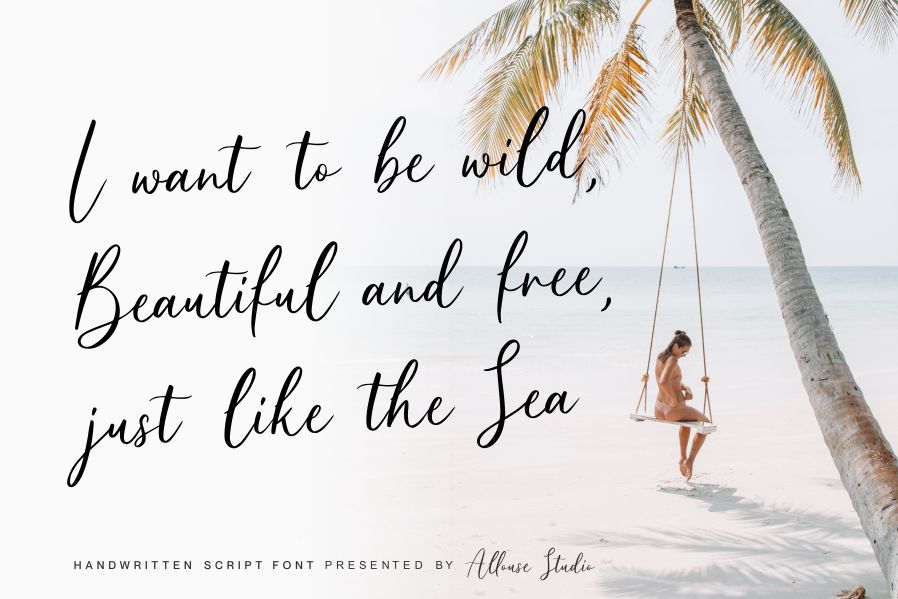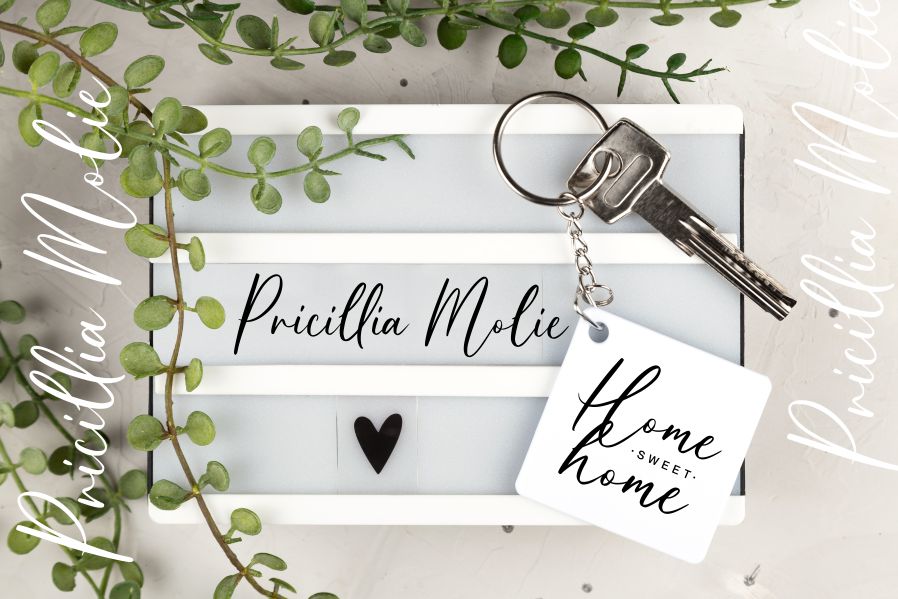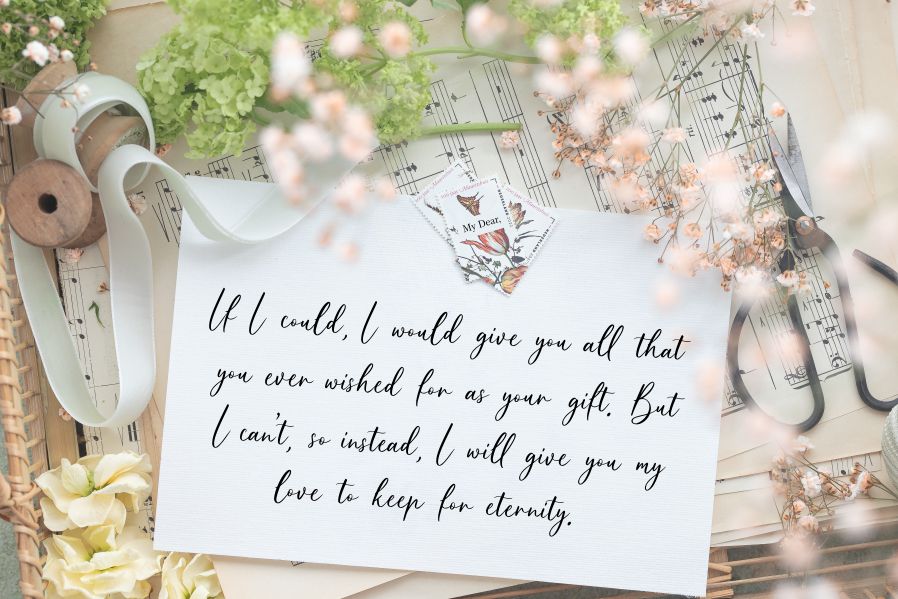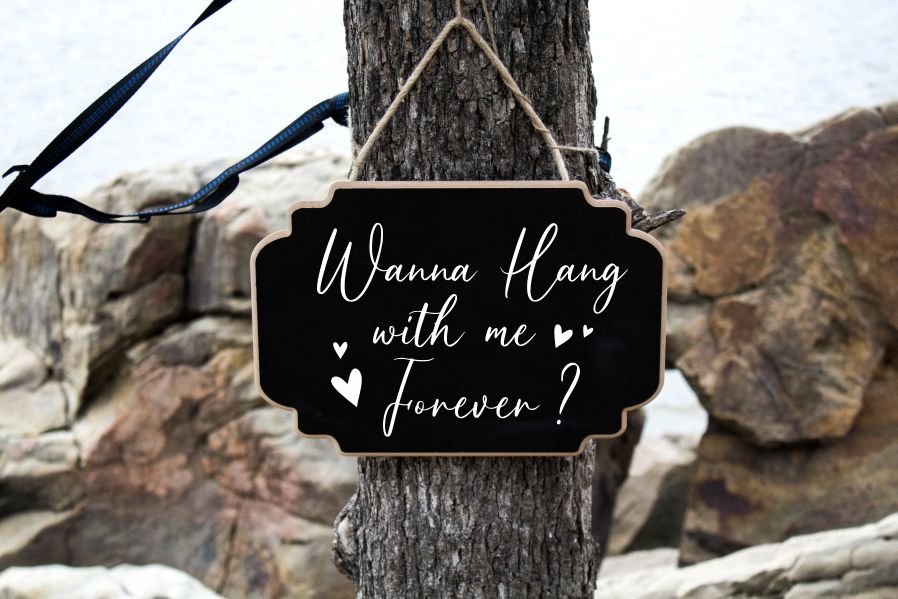
Queensouthy Font
Queensouthy Handwritten Font
This is A Handwritten Script Font. Queensouthy is perfect for product packaging, branding project, megazine, social media, wedding, or just used to express words above the background.